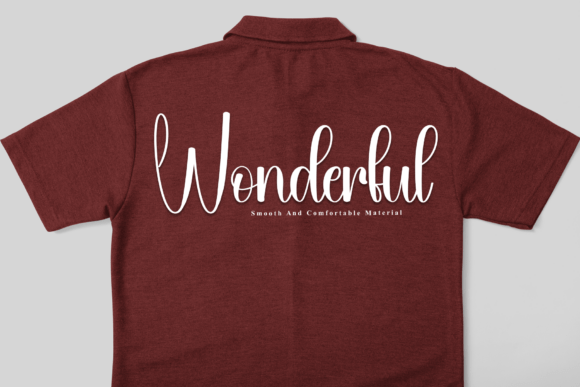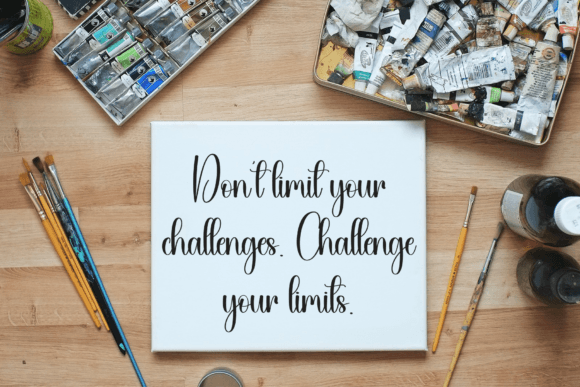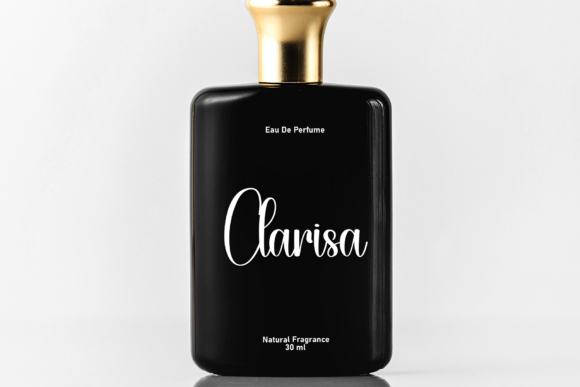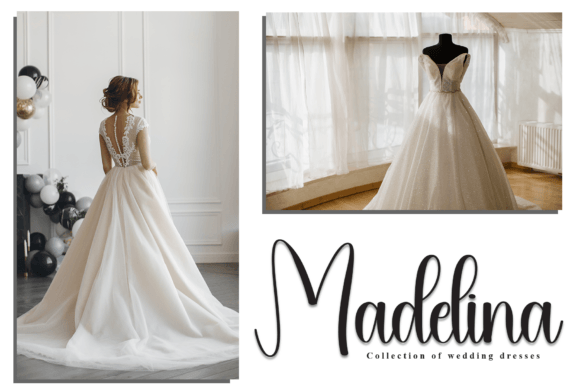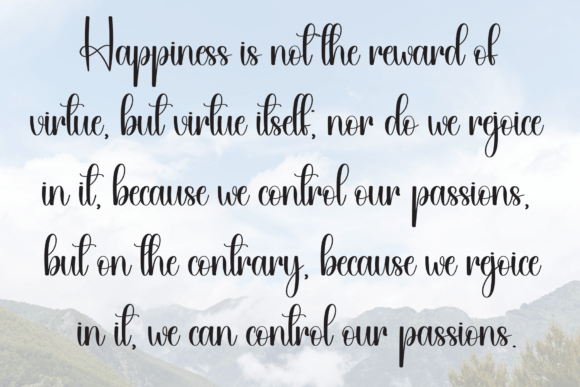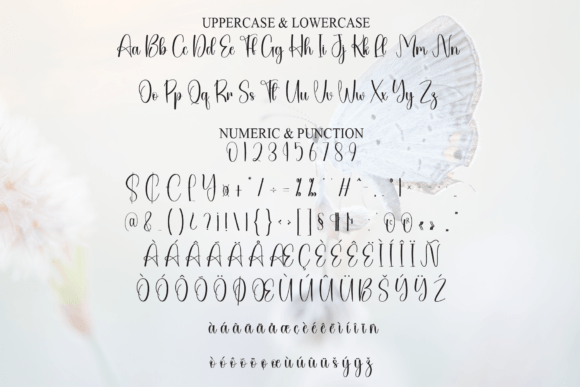
Butterfly Font - Featured Image
Key Features of Butterfly Font
• Unique Characteristics: The Butterfly Font features a unique blend of elegance and whimsy, with delicate curves and intricate details that evoke the beauty of butterflies. Its distinctive style makes it perfect for creative and artistic projects.
Designer Review: Butterfly Font
Overall, the Butterfly Font is a visually appealing typeface with a delicate, whimsical feel. The curves and flourishes add a touch of elegance, making it suitable for designs that require a touch of sophistication. ✨
• The unique letterforms create a distinctive visual identity that sets it apart from more common fonts.
• The font’s fluid connections between letters make it a pleasure to read, even in longer blocks of text.
• The wide range of weights and styles provide ample options for designers to experiment and find the perfect fit for their project.
Limits and Considerations
• The font may not be ideal for designs that require a strong, bold, or modern feel.
• The delicate nature of the font may make it difficult to read in smaller sizes or at a distance.
• The unique letterforms may not be suitable for designs where clarity and legibility are paramount.
Overall, the Butterfly Font is a lovely addition to any designer’s toolkit, offering a unique aesthetic that’s perfect for specific projects. While it may not be suitable for every design, it’s a great choice for those looking to add a touch of whimsy and elegance to their work.
Tips for Getting the Most Out of Butterfly Font
Use the Butterfly Font to add a touch of whimsy and elegance to your designs. Experiment with different font sizes, colors, and styles to create a unique look.
The Butterfly Font is perfect for:
• Wedding invitations and stationery
• Children’s book covers and illustrations
• Magazine and blog headers
• Party and event invitations
Comparison to Butterfly Font: While Butterfly Font is more playful and childlike, Great Vibes is more sophisticated and refined. Great Vibes is a better choice when you want to convey a sense of luxury or sophistication, whereas Butterfly Font is better suited for a more casual or playful tone.